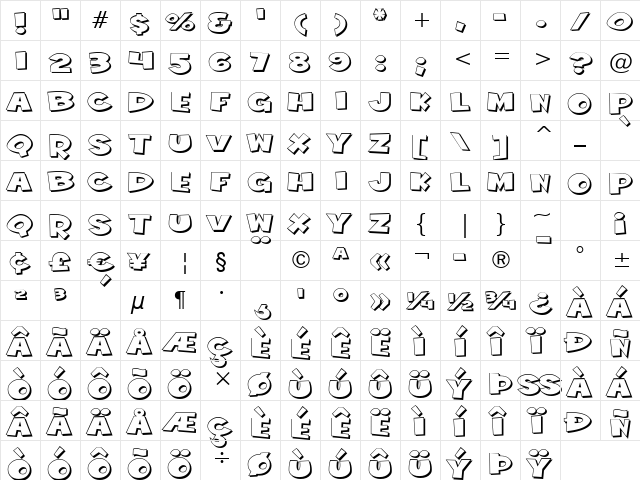
Wild Ketchup BTN Outline Shadow Regular
Design Context for Wild Ketchup BTN Outline Shadow Typeface
Wild Ketchup BTN Outline Shadow brings ornamental detail and strong personality to headlines and identities, where visual impact matters more than quiet functionality.
Font Pairing: Pair with a clean neutral sans-serif for body copy to let Wild Ketchup BTN Outline Shadow's character lead without overwhelming the composition.
Pro Tip: Use Wild Ketchup BTN Outline Shadow exclusively at display sizes — it was designed to be seen, not read at length. Let a neutral companion handle body copy.